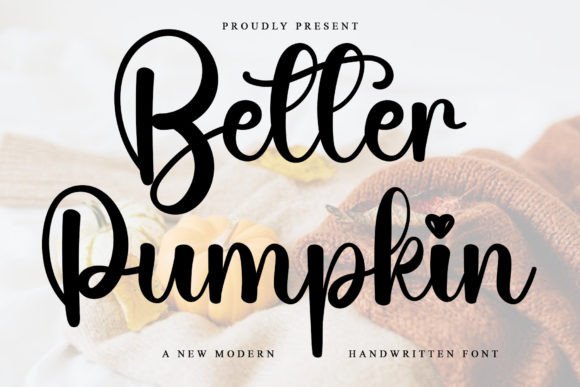
The Quest for the Perfect Font: Discovering Better Pumpkin
I’ll never forget the design project that led me to Better Pumpkin. I was working on a fall-themed invitation for a client’s harvest party, and I was determined to make it perfect. But, as I scrolled through font after font, I just couldn’t find the right one. That was until I stumbled upon Better Pumpkin, an exquisite handwritten font that stole my heart.
So, what makes Better Pumpkin so special? Here are a few things I adore about this font:
• ✨ Classy calligraphic influences: Better Pumpkin has a sophisticated, elegant feel that’s perfect for fall-themed projects, wedding invitations, or even luxury branding.
• ✅ Contemporary and fresh: Despite its classic influences, Better Pumpkin feels modern and on-trend, making it versatile for a wide range of design applications.
• 💫 Beautifully crafted: The attention to detail in this font is impressive, with subtle variations in line width and beautiful letterforms.
Of course, no font is perfect, and Better Pumpkin has a few minor quirks:
• 🤔 Limited multilingual support: While Better Pumpkin supports some non-English characters, it’s primarily designed for English and Western European languages.
• ⚠️ Occasional kerning issues: As with any font, you may encounter some kerning issues, especially when using Better Pumpkin at smaller sizes or with certain character combinations.
The Story Behind Better Pumpkin: Designer Inspiration
While the true story behind Better Pumpkin’s creation remains a mystery, it’s easy to imagine that the designer was inspired by the warm, golden tones of fall. Perhaps they spent hours pouring over vintage typography books, searching for the perfect blend of classic elegance and modern flair. Whatever the inspiration, Better Pumpkin is a true masterpiece.
What type of projects is Better Pumpkin best suited for? Better Pumpkin is versatile and can be used for a wide range of projects, including fall-themed designs, wedding invitations, luxury branding, and more.
Does Better Pumpkin support non-English characters? While Better Pumpkin supports some non-English characters, it’s primarily designed for English and Western European languages.